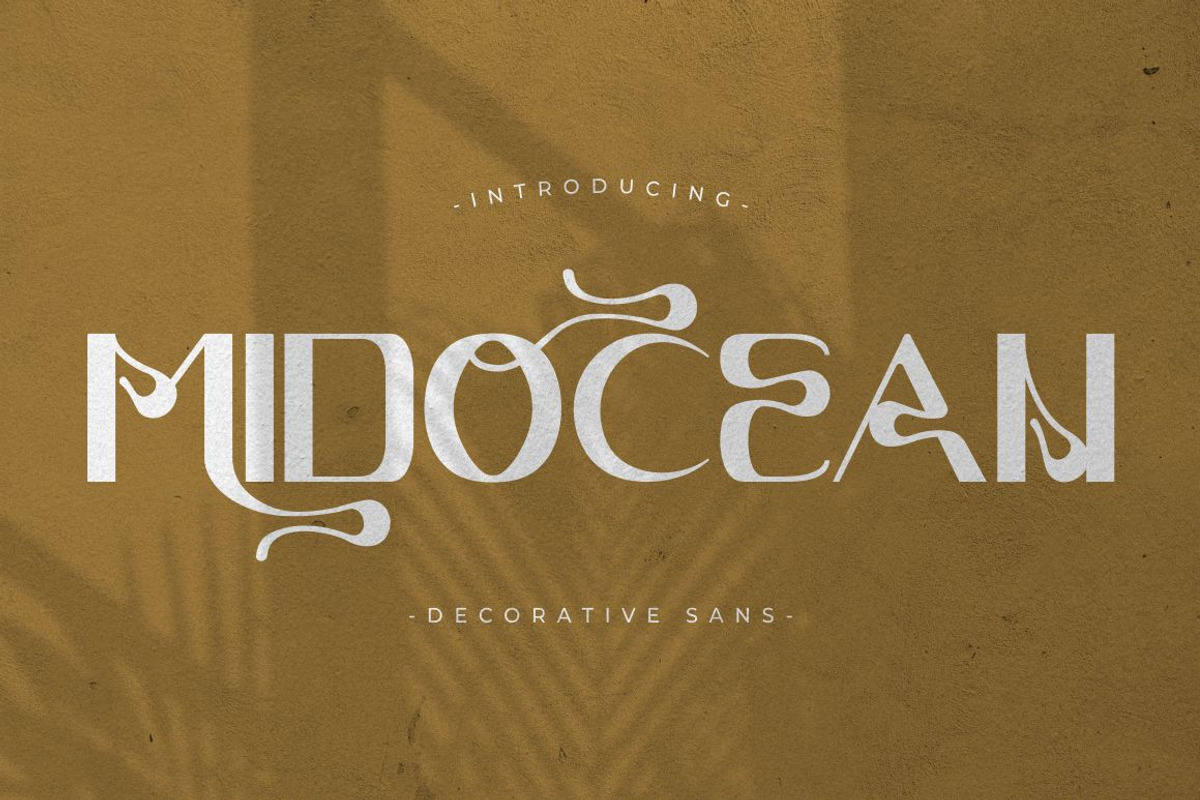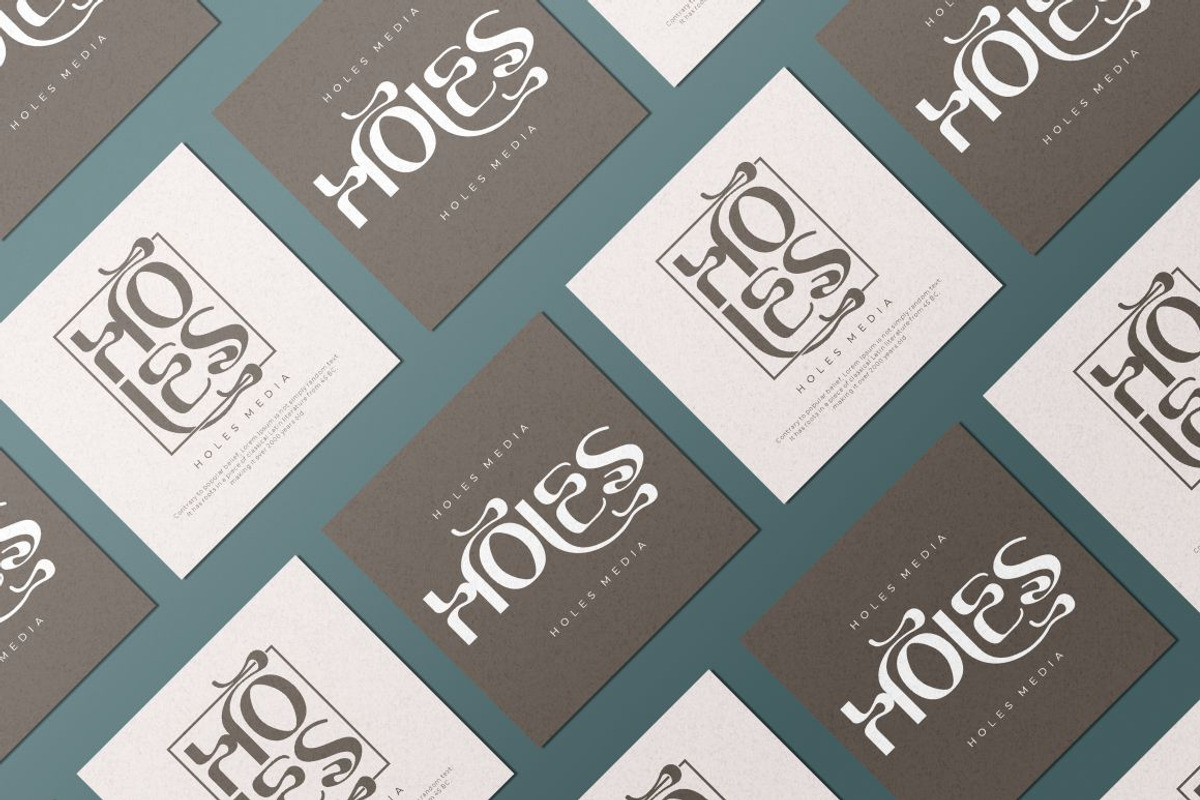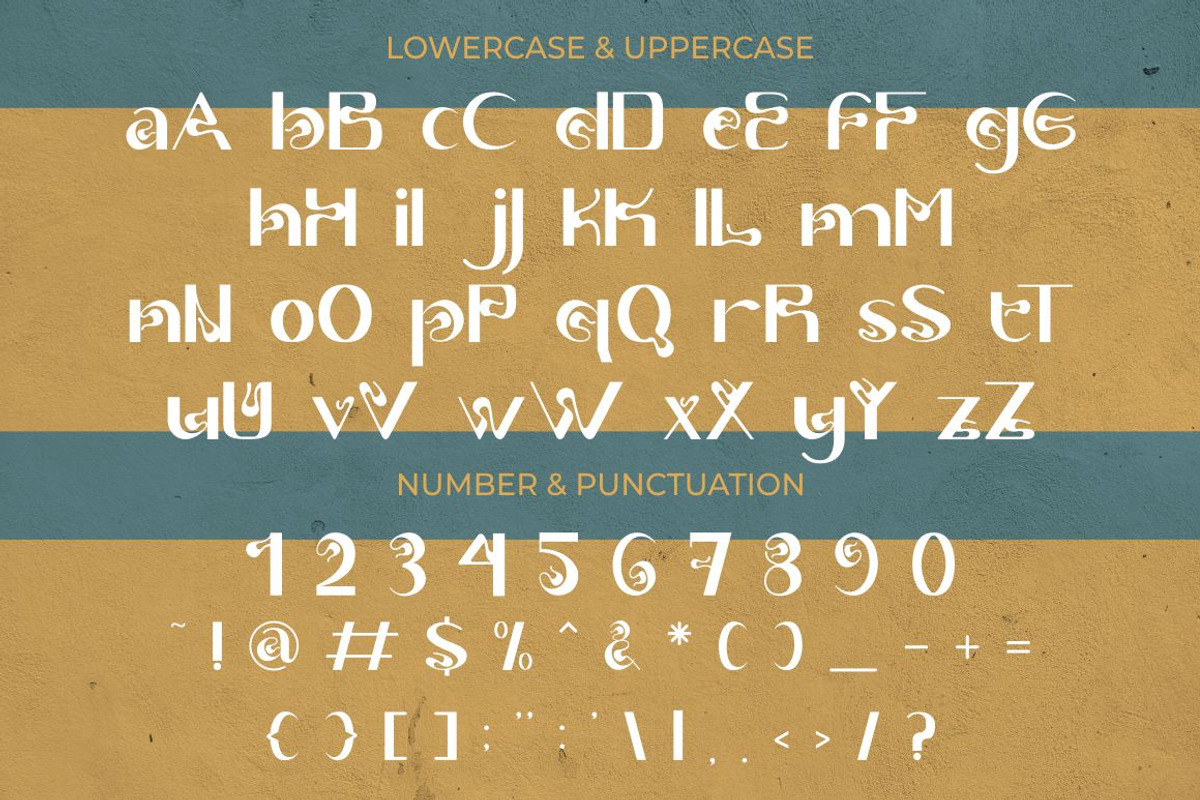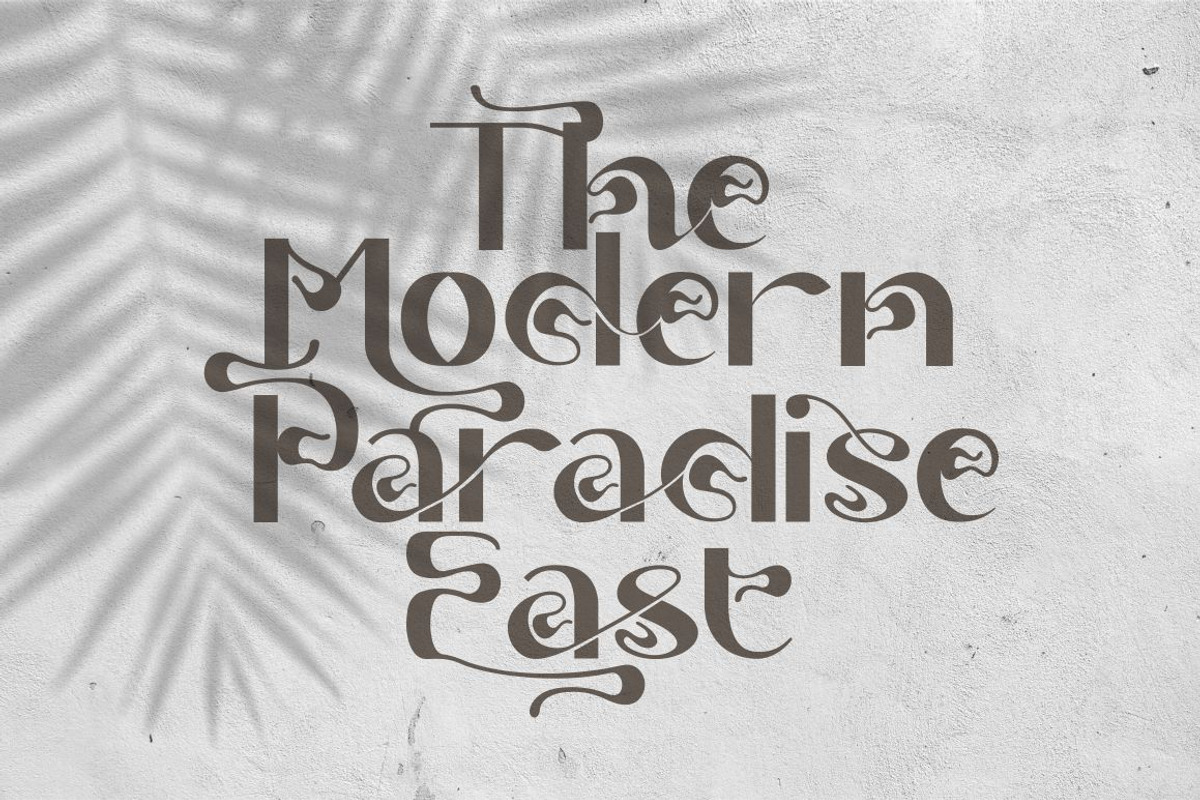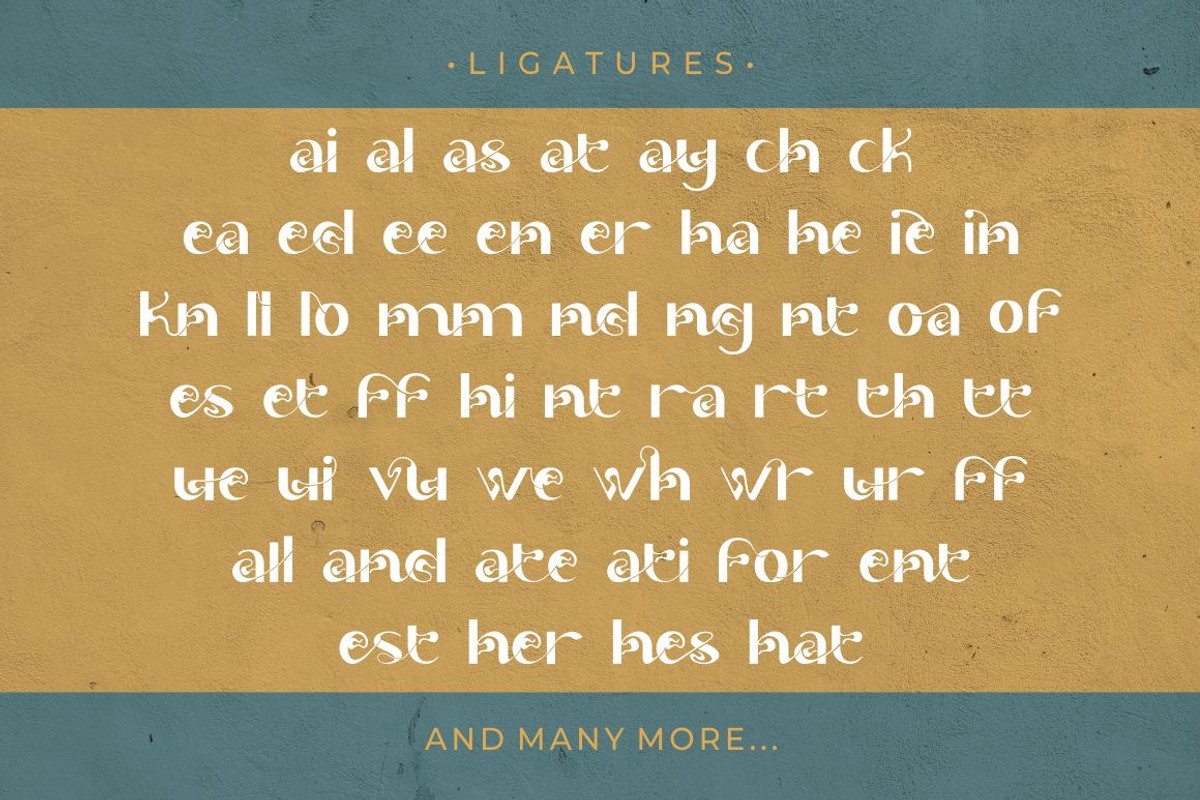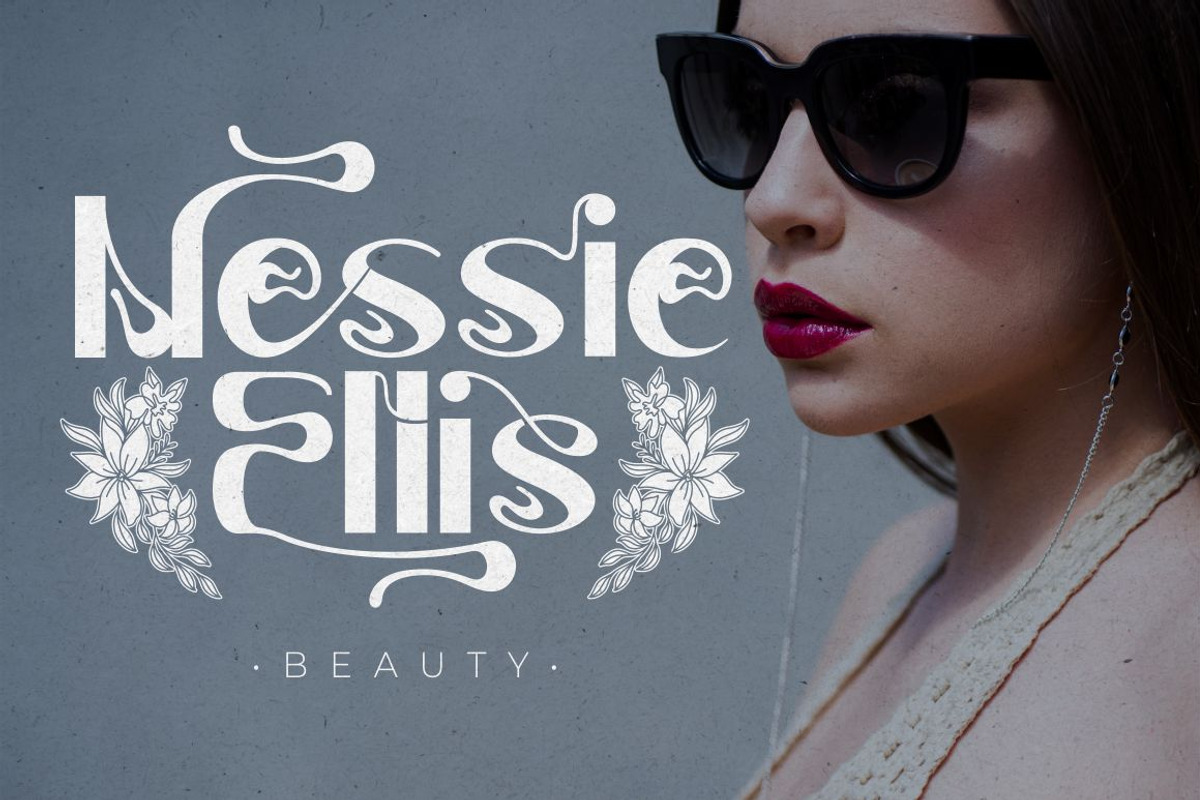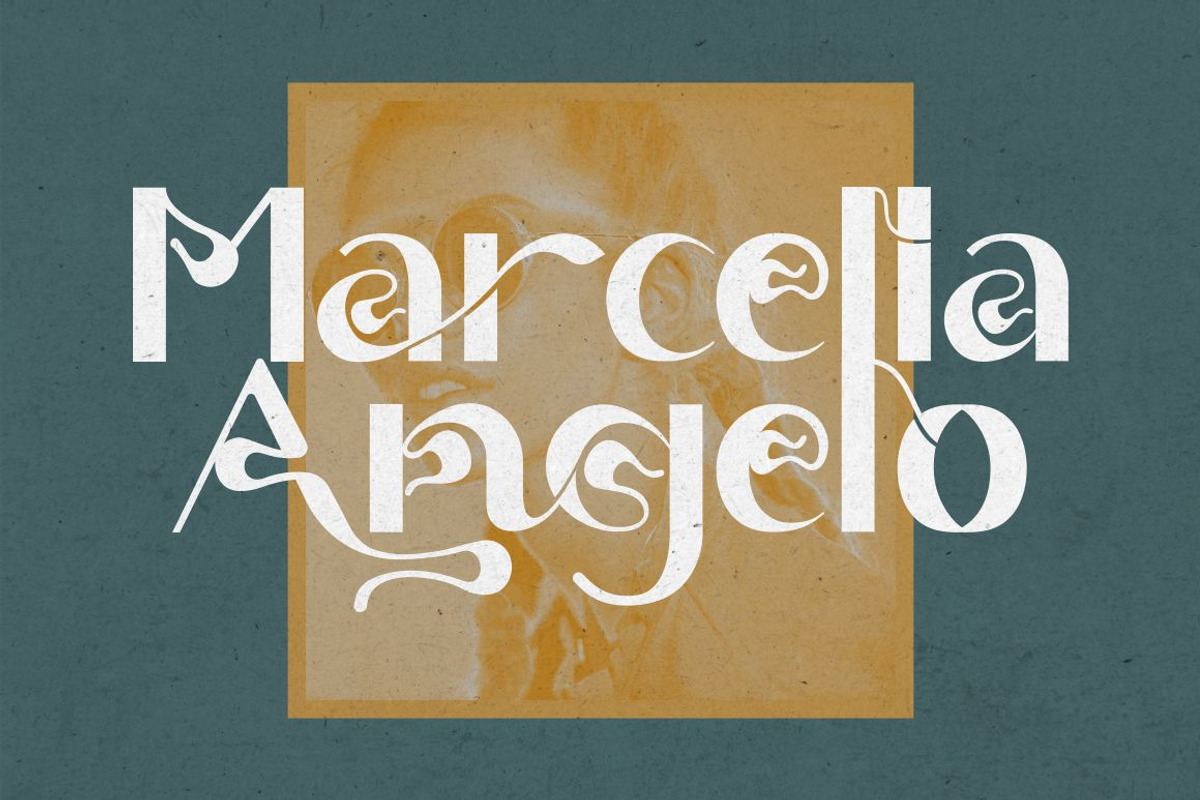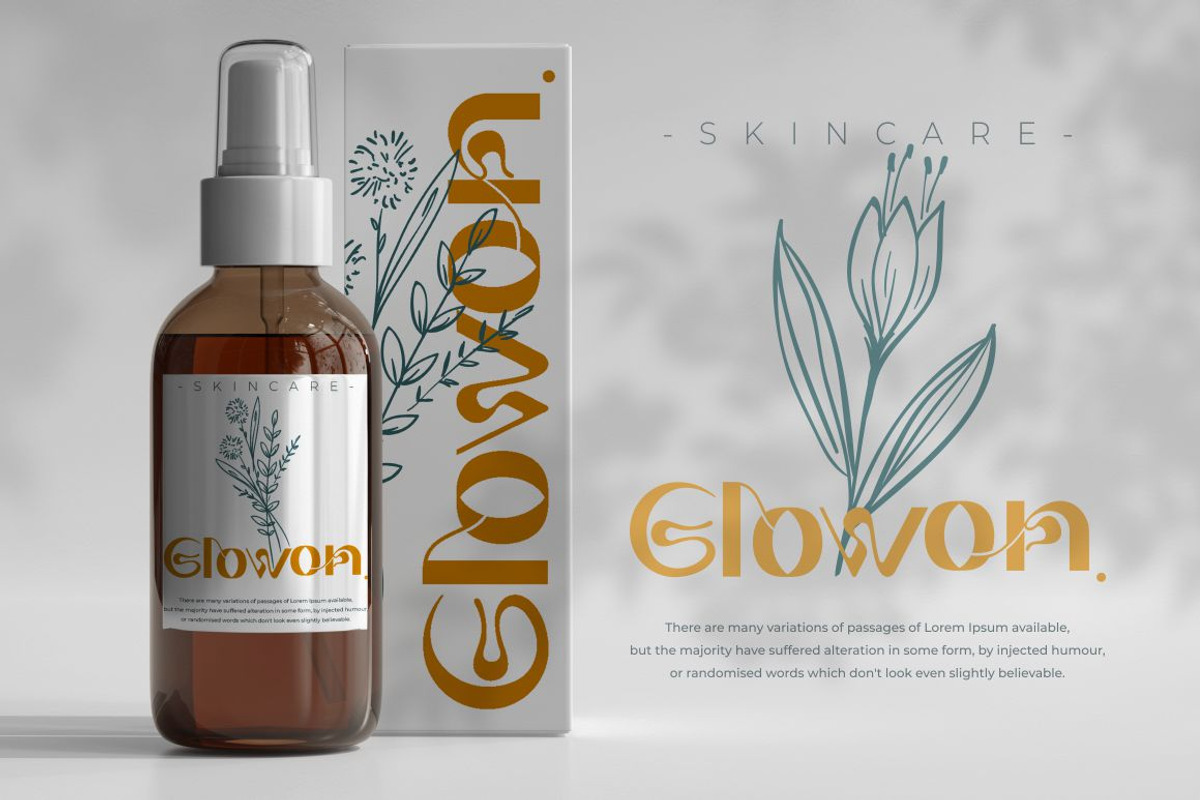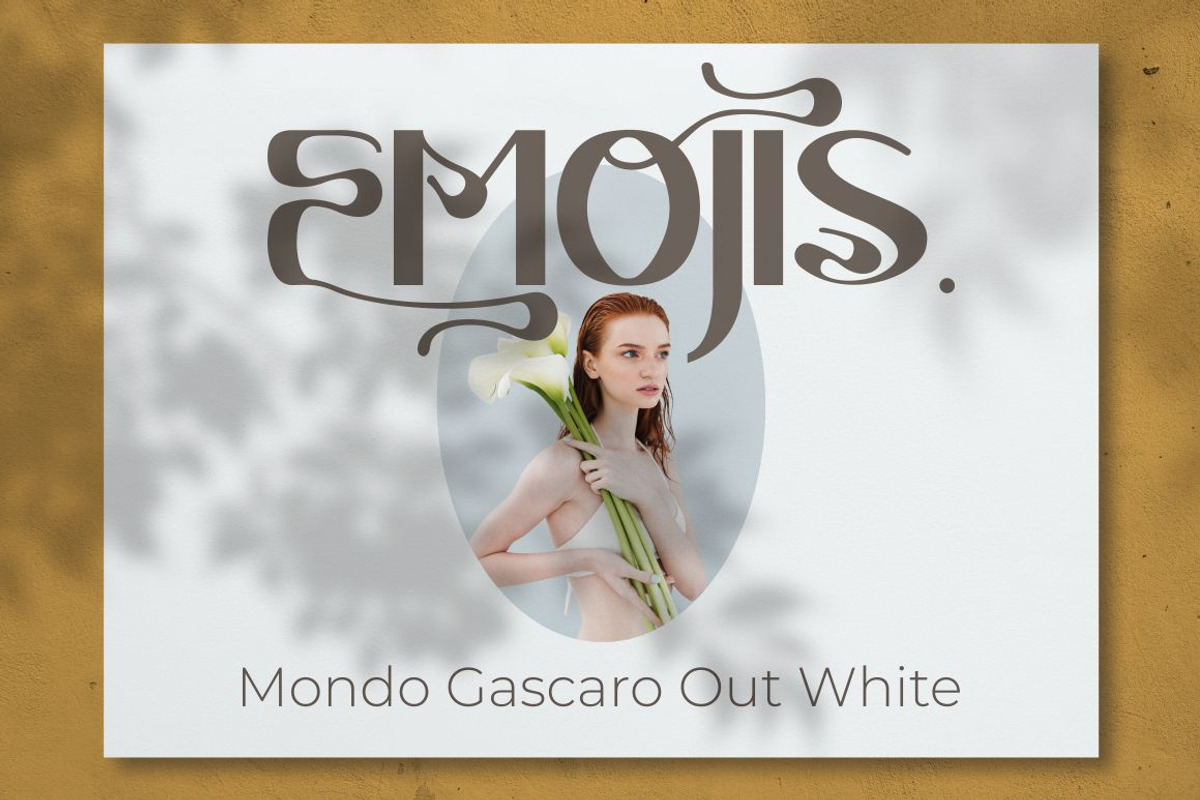
Midocean - Decorative Sans Font
Introducing a new sans font called “ Midocean “. Inspired from unique typography and lettering in the Javanese alphabet combine with typography style. With a alternate character, you can make letter combinations for lettering with a lot of options. Come with open type feature ( a lot of alternates and end swash), its help you to make great lettering. Midocean best uses for Logotype, heading,cover, poster, logos, quotes, product packaging, header, merchandise, social media & greeting cards and many more. This font is also support multi language.
Comes with feature :
- Opentype (Alternates And Ligatures)
- Number, Punctuation And Symbols
- Multilanguage Support.